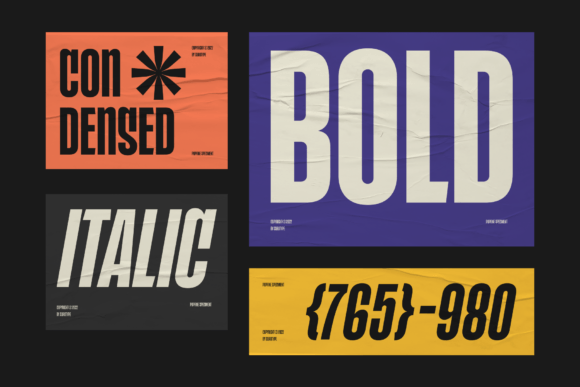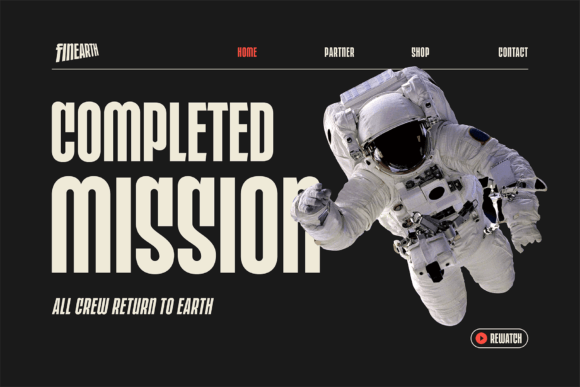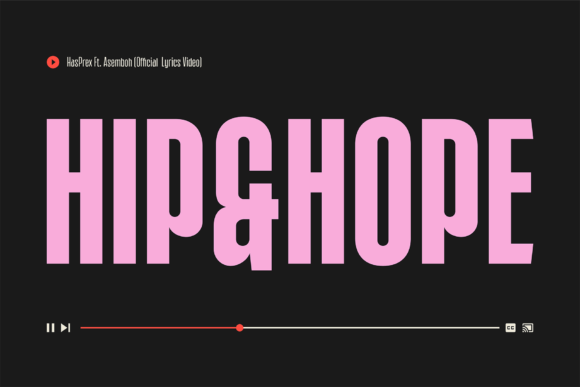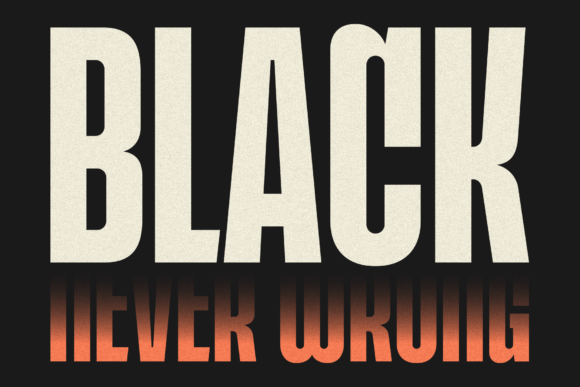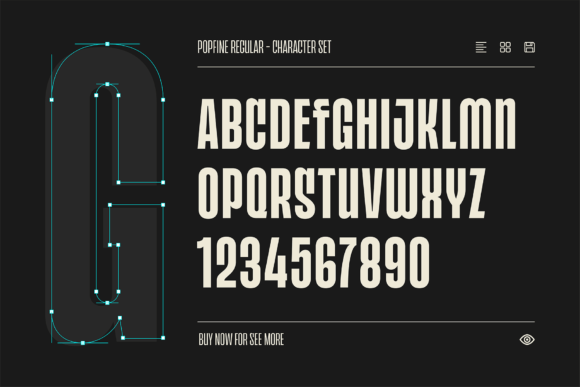
Introduction to Popfine Font
Remember that moment when a simple design decision elevates your entire creative project? The subtle shift in typography that makes your branding stand out or the perfect font pairing that captures the essence of your film title? For designers, those ‘aha’ moments are what make the craft so rewarding.
That’s where the Popfine Font comes in – a versatile sans serif typeface designed to help you create beautiful, high-quality visual content with ease. Whether you’re working on a branding project, crafting a film title, or designing a poster, Popfine Font is a valuable design resource that can take your work to the next level.
Key Features of Popfine Font
- Unique, modern design suitable for creative projects, making it an excellent design resource.
- High-quality font with a transparent background, allowing for seamless integration with various design elements.
- Perfect for designers and artists working on projects that require a modern, playful touch.
- Comes in a single font size, with a resolution of 300 DPI, making it ideal for print and digital use.
- Easy to customize and use in various design applications, including Adobe Photoshop and Illustrator.
Honest Review: Popfine Font
I recently had the chance to work with the Popfine Font, and I must say it’s a great addition to any design resource. This high-quality font is perfect for creative projects that require a touch of sophistication and elegance.
- Its transparent background makes it easy to layer and combine with other design elements.
- The font is highly customizable, allowing for a wide range of styles and applications.
- ⚠️ The font may not be suitable for projects that require a bold, attention-grabbing font.
- ⚠️ Some users may experience difficulties with font alignment and spacing.
Overall, I’m impressed with the Popfine Font. Its high-quality design and versatility make it a valuable addition to any designer’s toolkit. If you’re looking for a reliable and stylish font for your next creative project, I highly recommend giving it a try.
Common Use Cases for Popfine Font
The Popfine Font is ideal for a variety of creative projects, including logos, business cards, and brochures. It’s also perfect for creating invitations, posters, and social media graphics. With its high-quality design and transparent background, the Popfine Font is a versatile design resource that can be used in a wide range of applications.